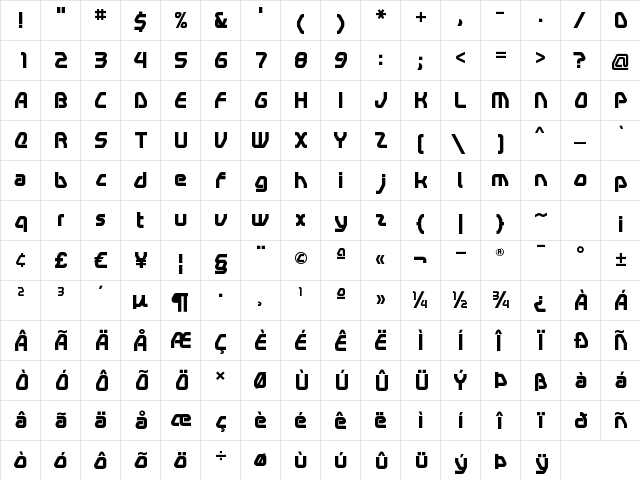
Swerve Bold
Design Context for Swerve Typeface
Swerve offers clean, dependable letterforms without strong stylistic allegiance, making it a practical choice for designers who need flexibility. Its bold stroke weight gives it real presence on the page.
Pro Tip: Pair Swerve with a font of contrasting weight or personality to build a more expressive typographic hierarchy.